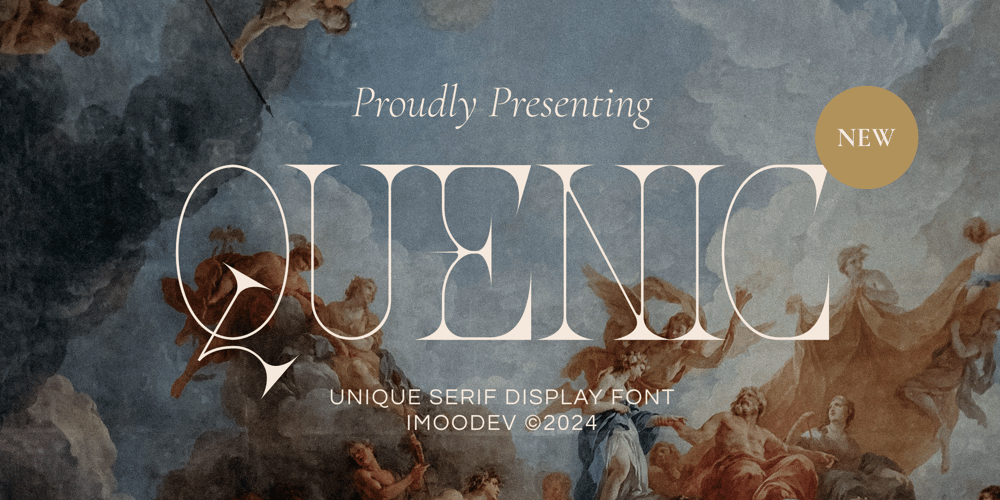
Quenic Font Family was designed by Aulia Savira Putri and published by Imoodev. Quenic contains 1 styles and family package options. Introducing Quenic, a unique serif display font that seamlessly luxury and offering a harmonious balance between classic and contemporary design. Perfect for bringing a touch of refined grandeur to a wide range of creative projects.